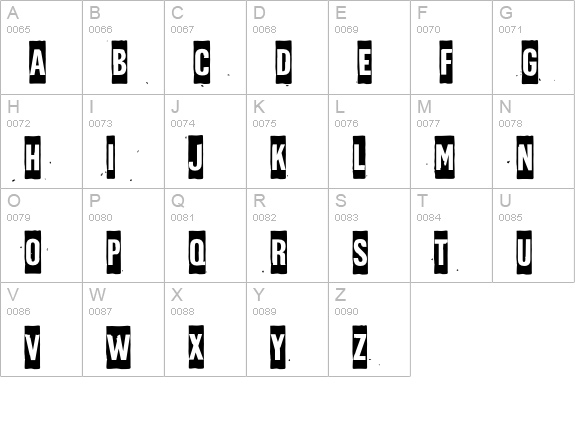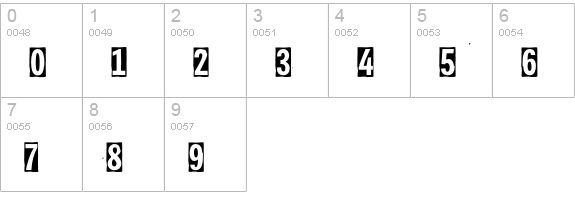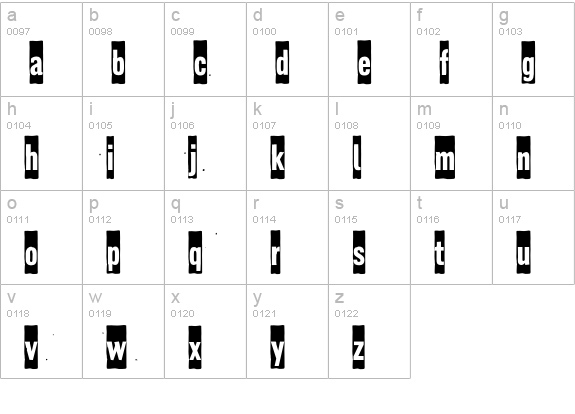
Gazz-Paint Font Details
Introducing Gazz-Paint font, a dynamic and playful typeface perfect for adding a touch of creativity to your designs. This unique font features bold, hand-painted strokes that exude energy and spontaneity. With its distinct style and vibrant personality, Gazz-Paint is sure to make a statement in any project. The best part? Gazz-Paint font is completely free to download at FontsMarket.com. This means you can easily access this eye-catching font and incorporate it into your designs without any cost. Whether you're working on posters, social media graphics, branding materials, or any other creative project, Gazz-Paint font is a versatile choice that will help your designs stand out. Don't miss out on the opportunity to enhance your designs with the bold and expressive Gazz-Paint font. Download it for free today at FontsMarket.com and unleash your creativity!